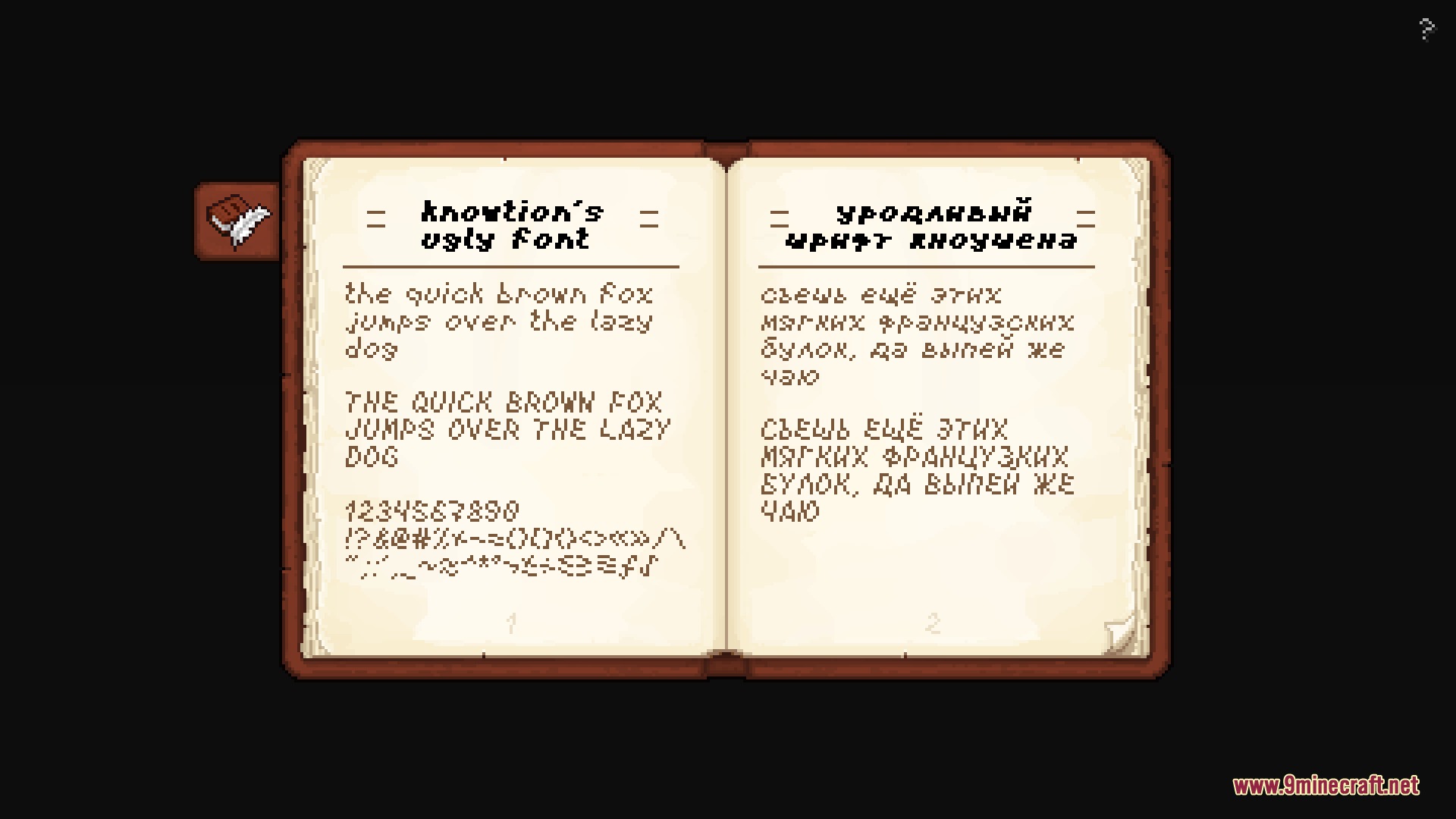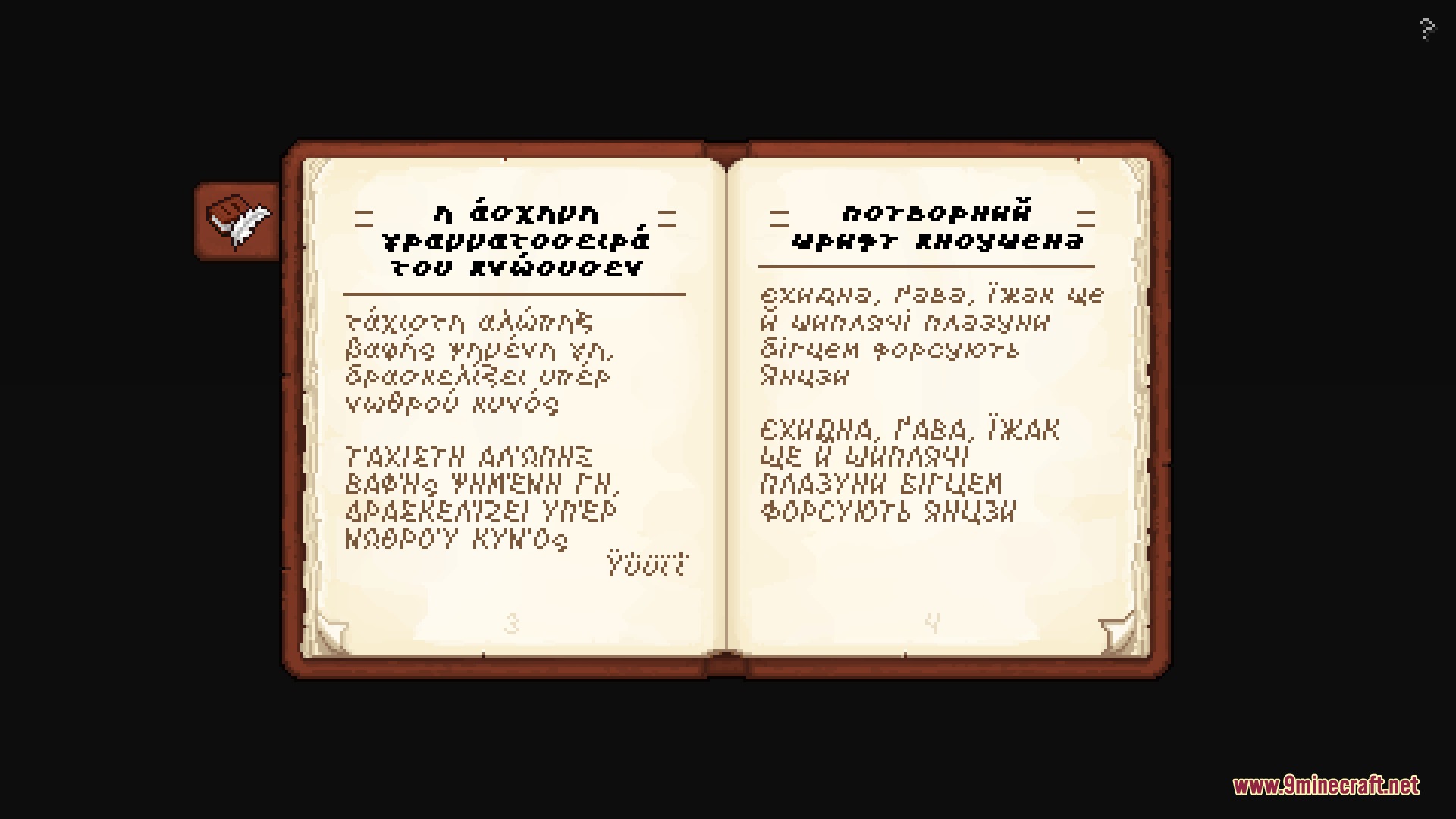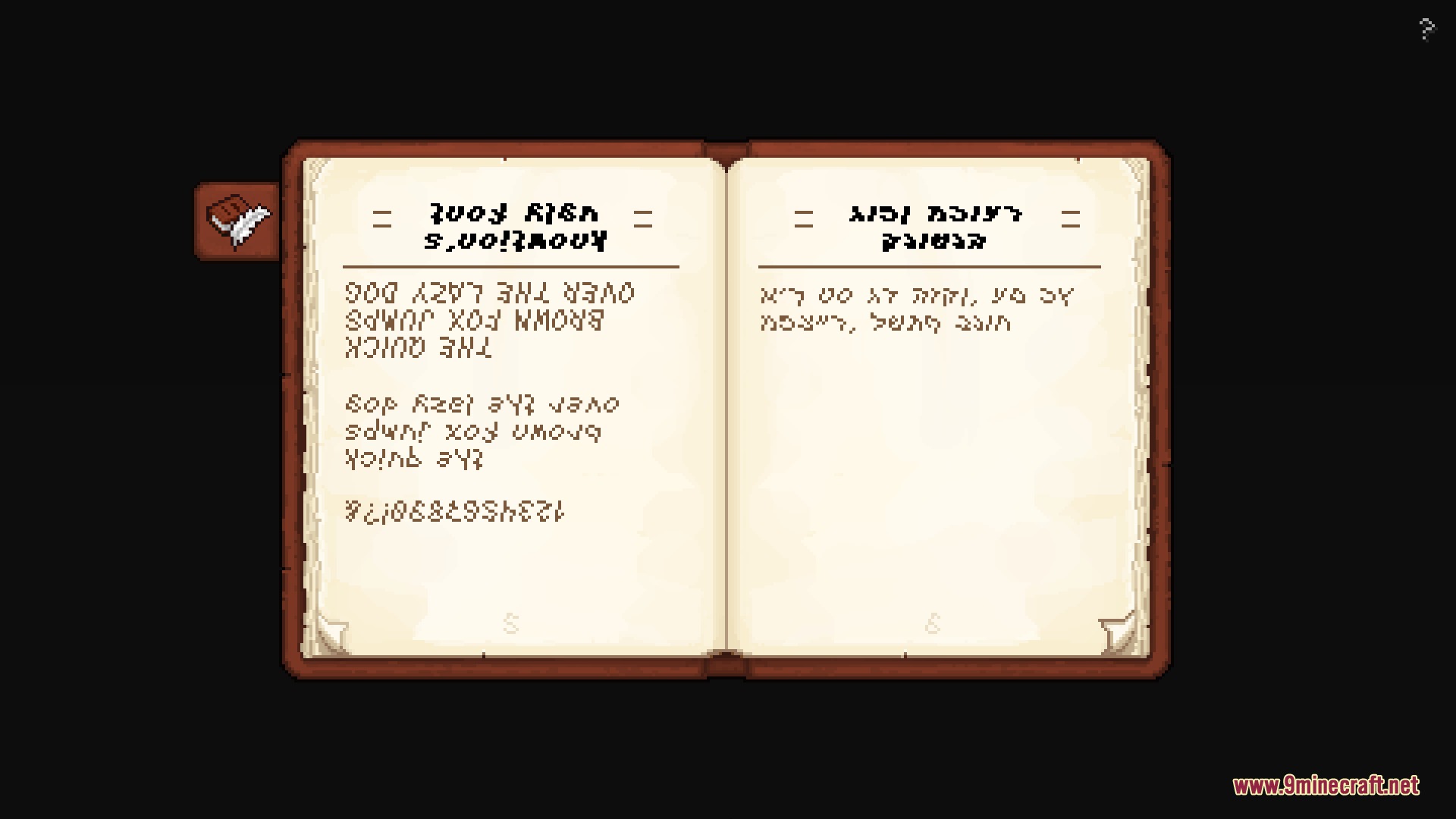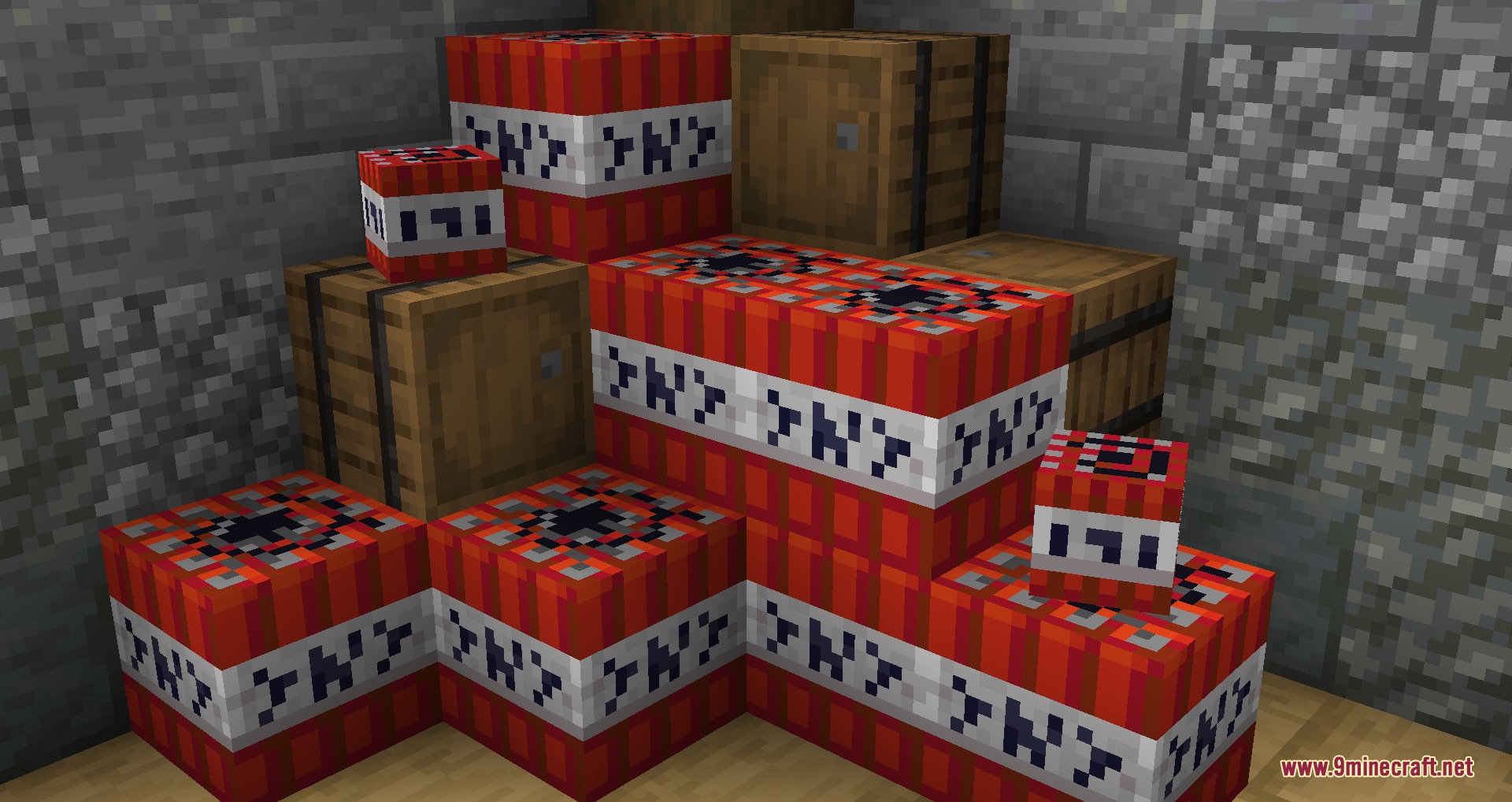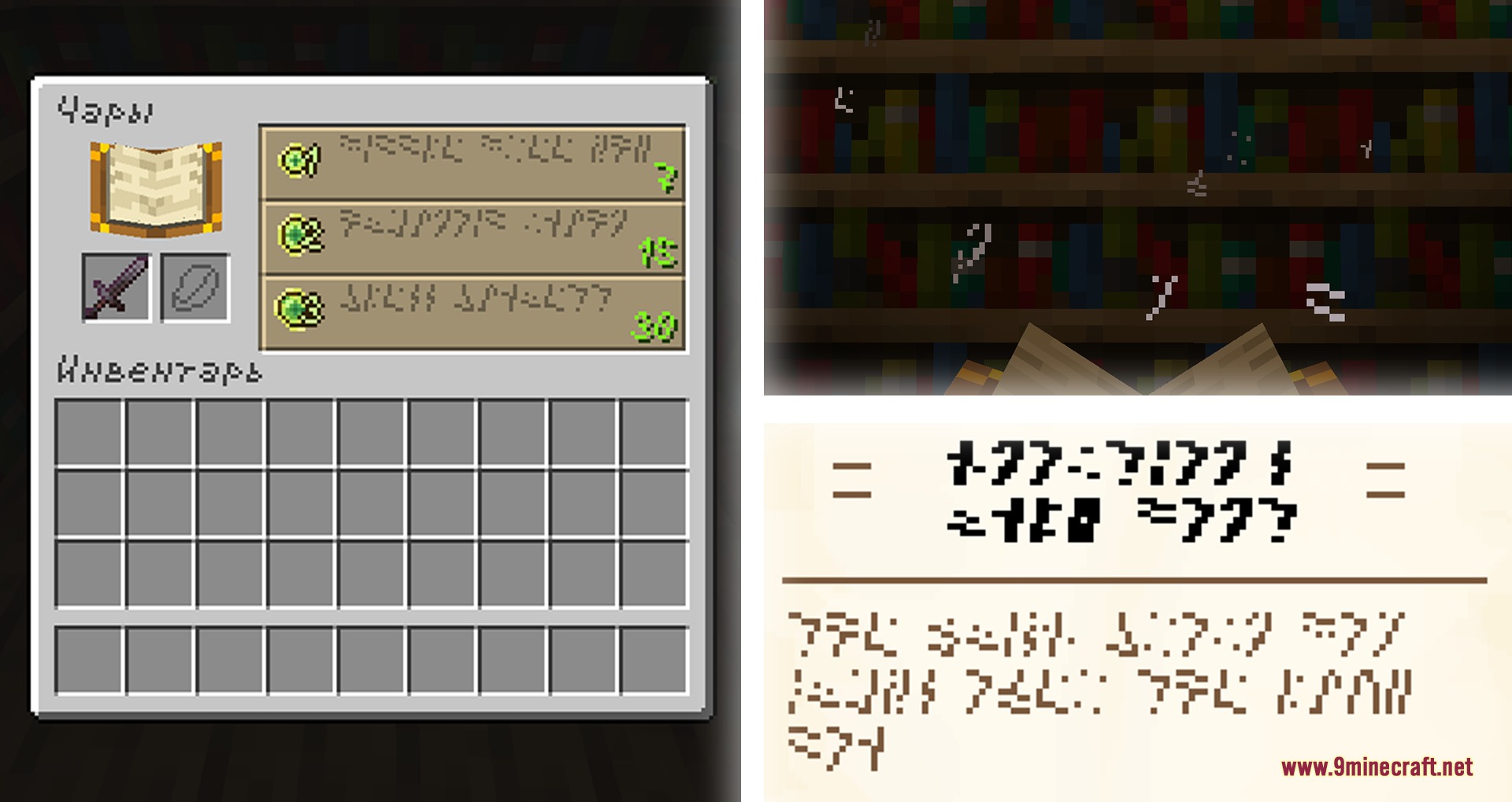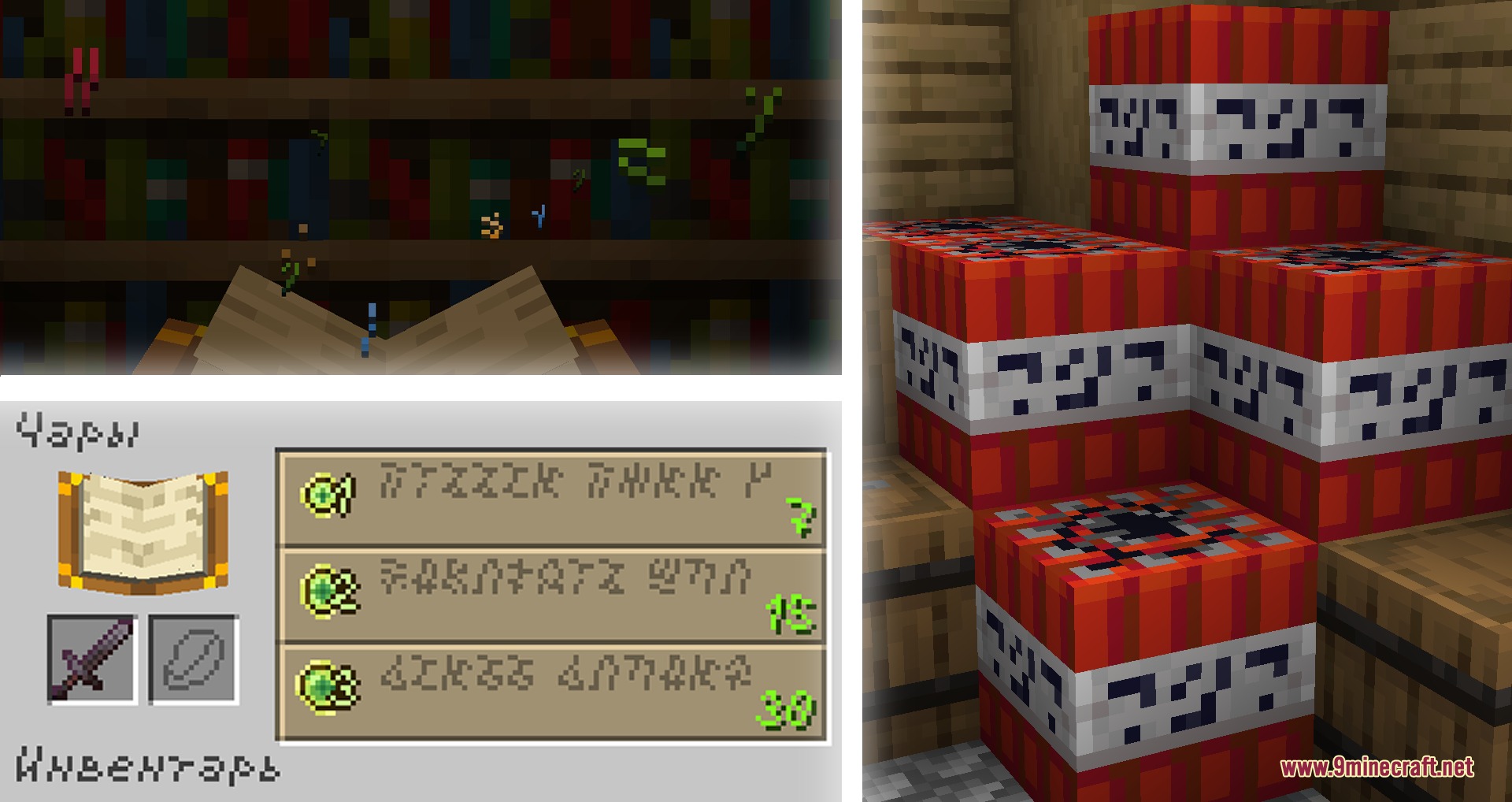
Knowtion’s Ugly Font Resource Pack replaces vanilla text with a stylized, unique look. It changes the letters you read in menus, books, and chat boxes across the game. This pack also updates the textures for TNT blocks and enchanting tables to match the new text style.
• Stylized Text: Transforms the default letters into a fresh, distinct shape across menus and chat.
• Language Options: Works with 129 out of the 143 languages in the game.
• Updates the side textures of TNT blocks to display the new text style.
• Changes the icons and floating particles around enchanting tables.
• Falls back to the default Unifont for any languages that do not have custom letters.
• Includes an optional add-on for colorful enchanting table particles inside the downloaded file.
• Packs an extra add-on that turns the TNT text into the Standard Galactic Alphabet.
• Brings a third optional add-on to swap the Standard Galactic Alphabet with Illageralt runes.
An open book showcasing the custom font in English and Russian text
An open book displaying the custom font in Greek and Ukrainian text
An open book in Minecraft displaying a unique stylized font on its pages
Several TNT blocks with stylized text stacked alongside wooden barrels in a room
Knowtions Ugly Font resource pack showing stylized text in the enchanting menu
TNT blocks and enchanting table displaying unique stylized text textures